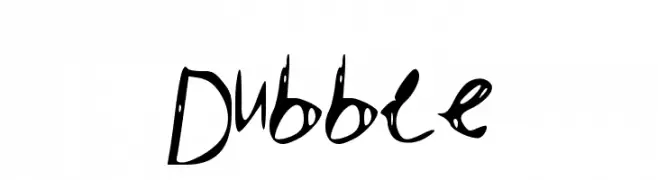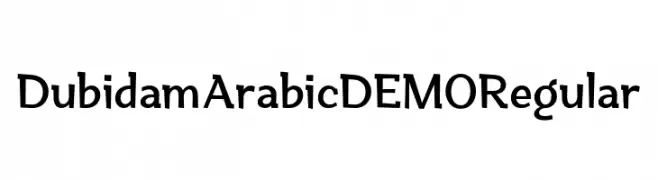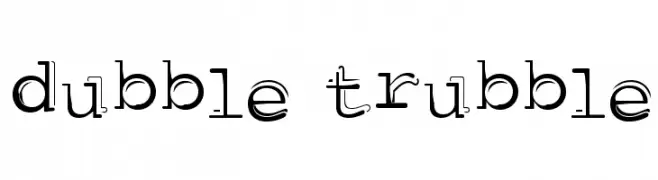
A bold, geometric font with Art Deco influences, featuring tall, narrow characters.
A bold, geometric font with Art Deco influences, perfect for striking headlines.
A bold, geometric font with Art Deco influences, ideal for striking headlines.
( Fonts by Uddi Uddi )
A playful, irregular font with a hand-drawn, artistic style.
( Fonts by Andrew McCluskey - nalgames.com )
A bold, futuristic font with geometric and dynamic design elements.
A playful, bold font with a unique double-outline effect for added depth.
( Fonts by Namela Type )
A modern font with geometric letterforms and a subtle artistic flair.